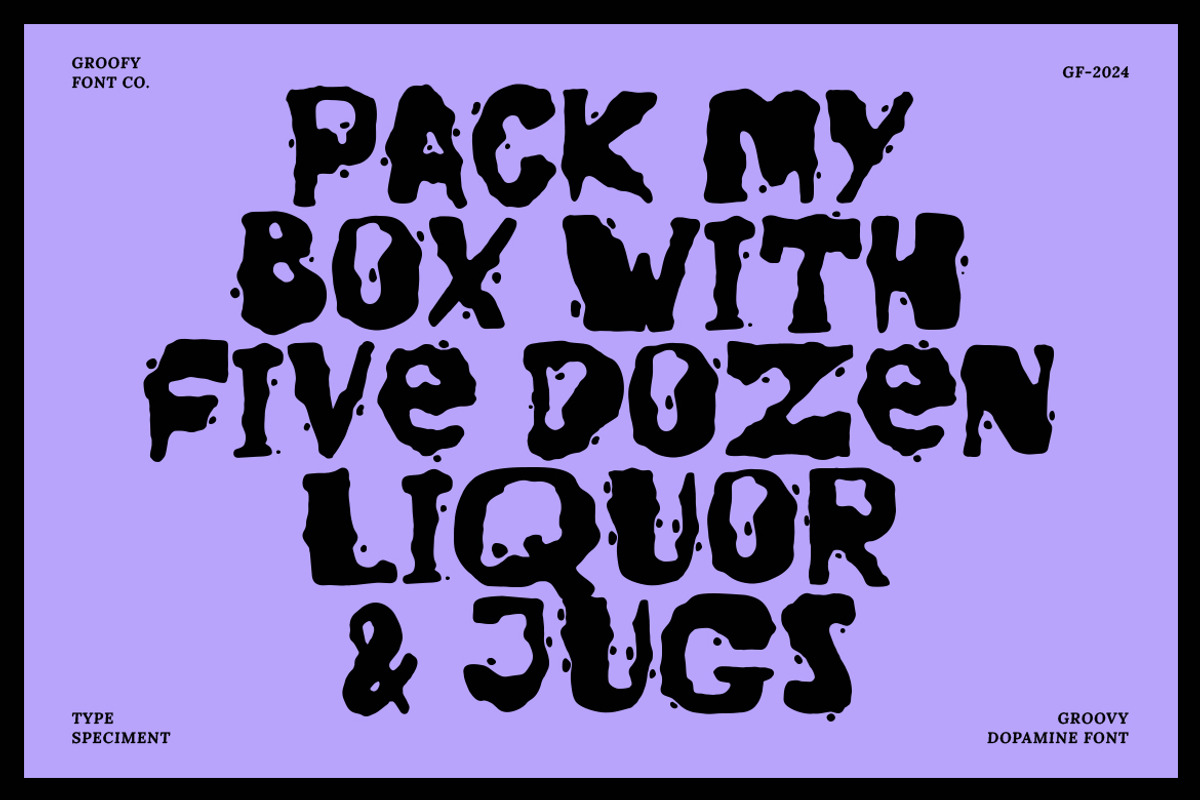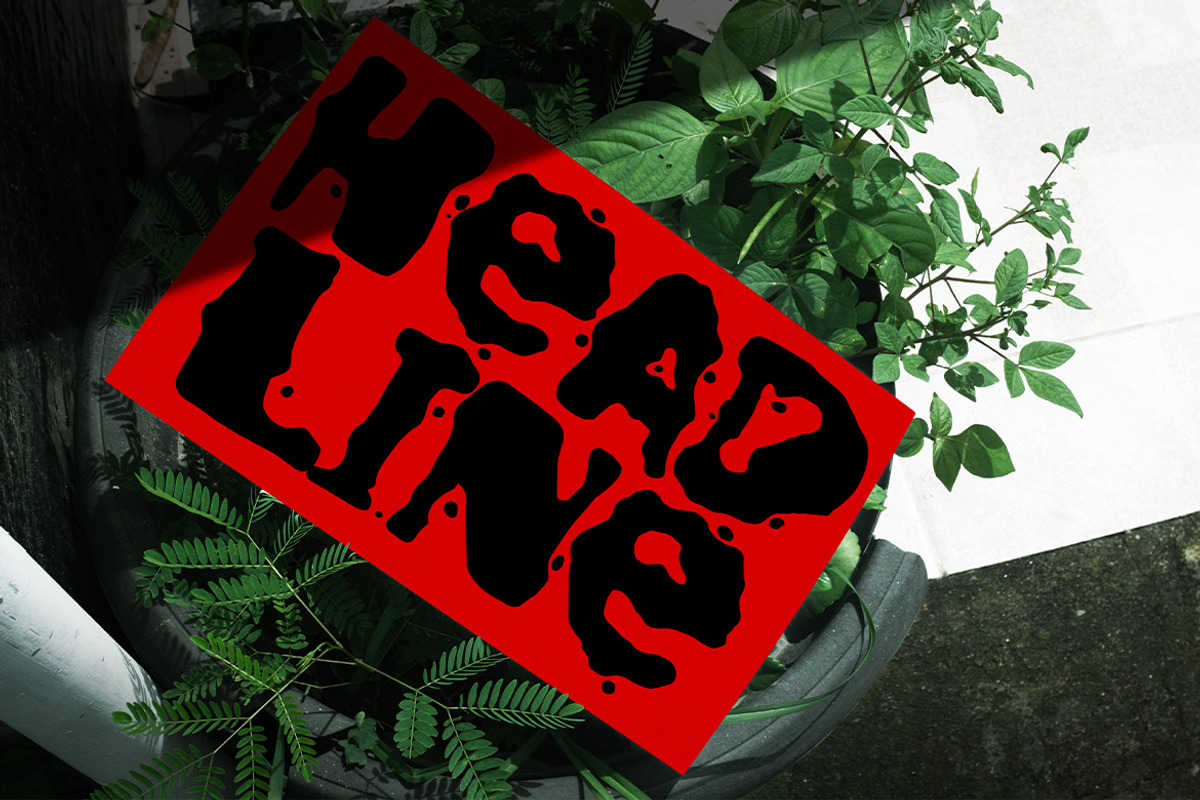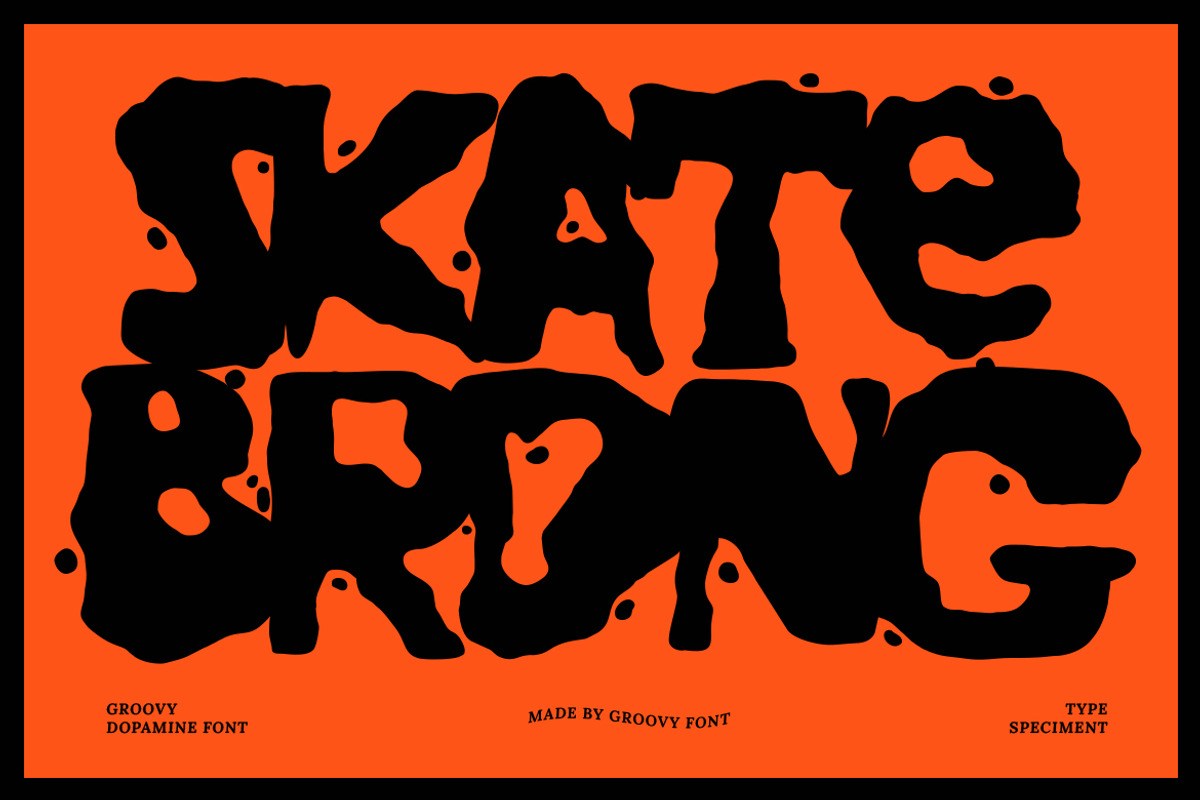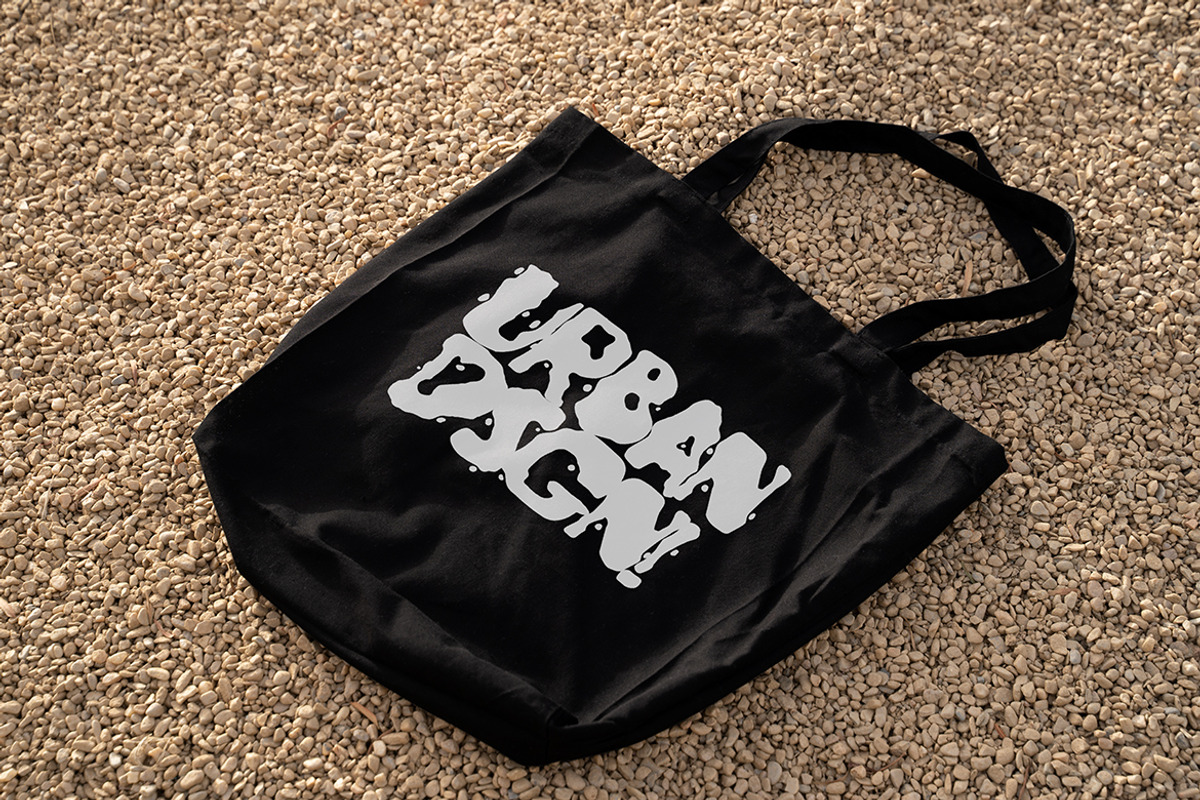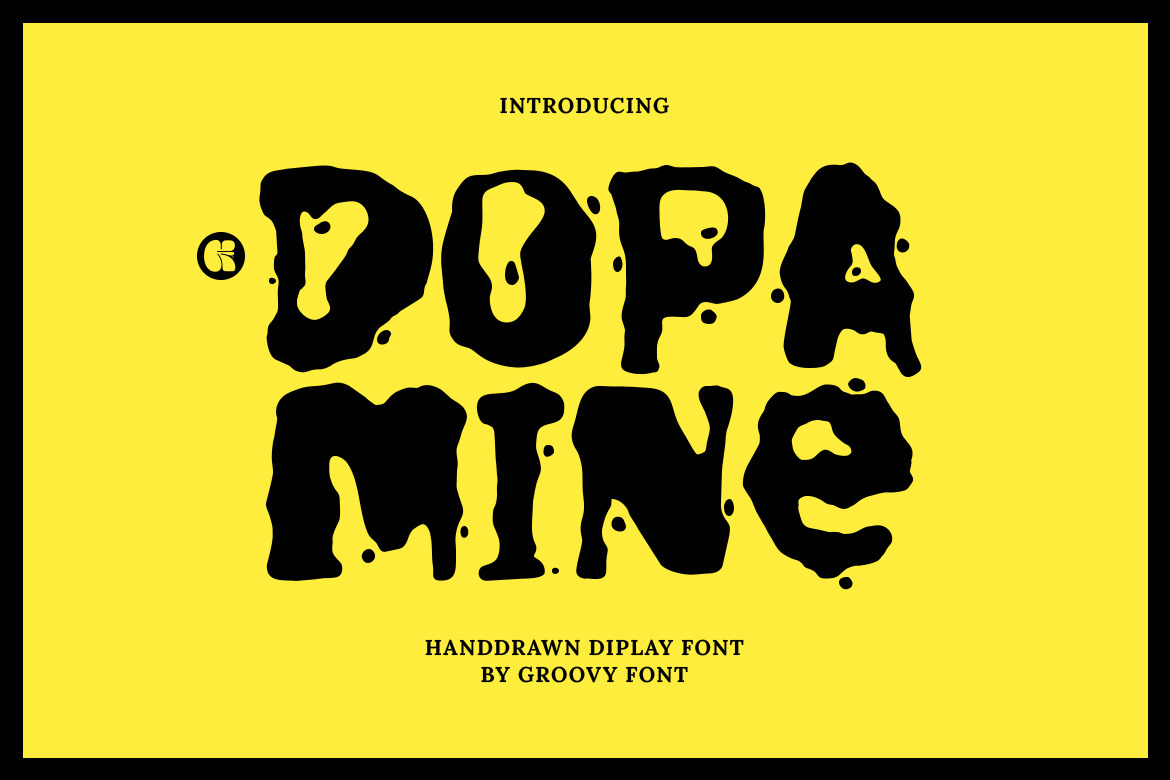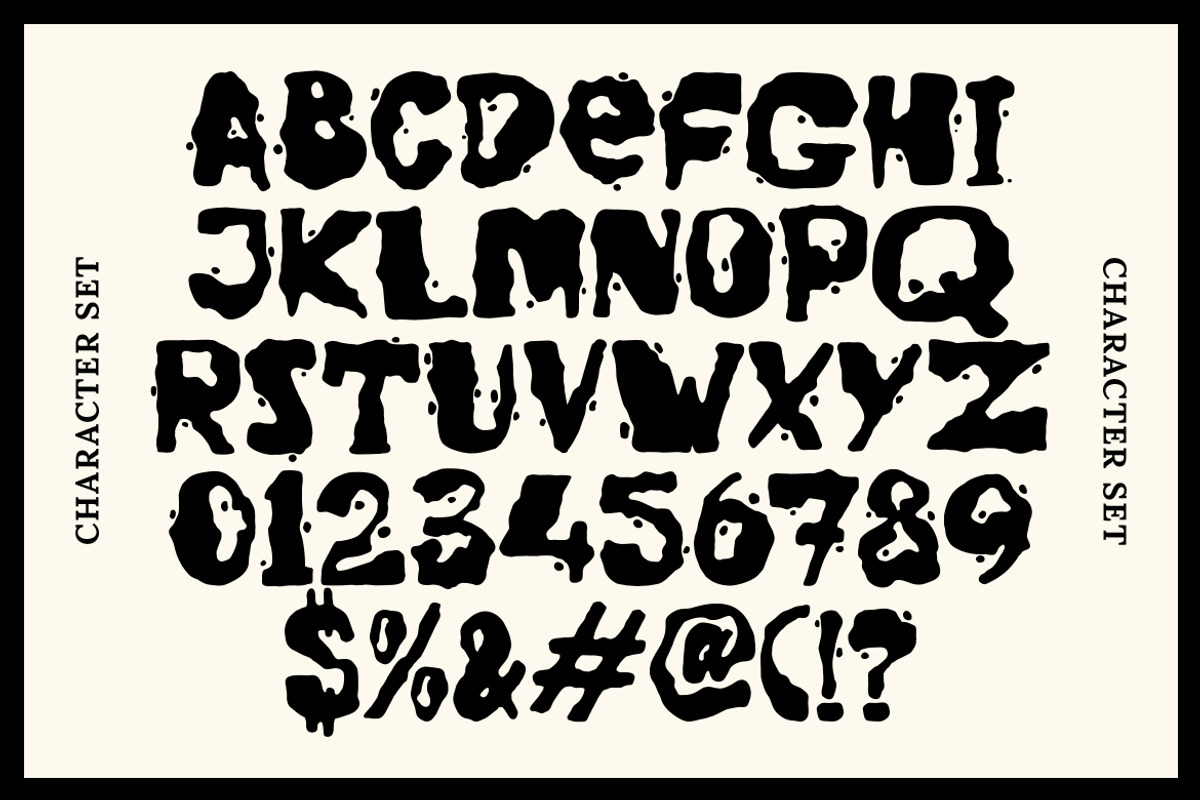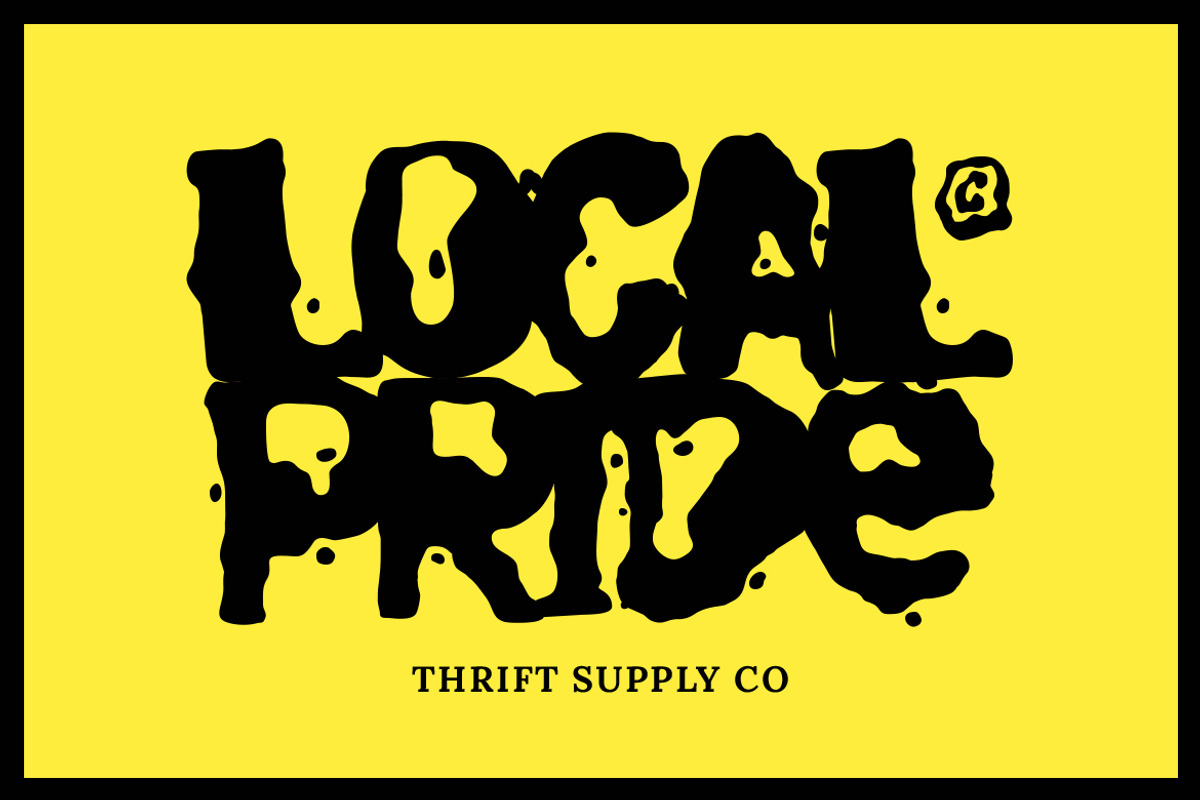
Dopamine Handdrawn Display Font
Groovy Dopamine is a Handdrawn Display Font that exudes a bold and expressive aesthetic.
With a thick brush-like design, each letter in this font is adorned with unique dots, adding a touch of mystique and intrigue to its overall appearance.
The combination of the thick strokes and the ominous dots gives this font a slightly eerie and captivating quality, making it a standout choice for projects that call for a touch of the unexpected.